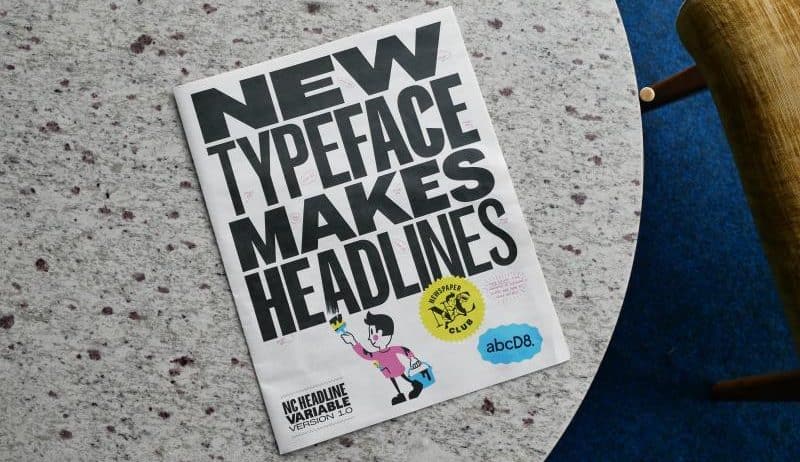
Newspaper Club launches NC HEADLINE with abcD8, a bold tabloid-style typeface owned outright
Newspaper Club unveils NC HEADLINE, a tabloid-inspired variable all-caps font it owns outright, debuting at Birmingham Design Festival
Curator’s Pick: NC HEADLINE Reinvents Ownership
As a branding curator, I champion moves that cut licence noise and amplify identity control. Newspaper Club and abcD8 have done exactly that, commissioning NC HEADLINE for ownership and versatility. The typeface channels tabloid energy, vintage cues and modern flexibility, while staying unapologetically headline first. It demonstrates how bespoke fonts can protect brand equity and reduce recurring costs.
Drawing on St Bride archives, D8 refined broadsheet gravitas into a punchy tabloid voice. The team embraced variable widths, no lowercase and responsive typographic behaviour for social, video, print and large format. That decision makes headlines stackable, bold and adaptable, without diluting historical references. Importantly, abcD8 offers transparent pricing, letting brands own type outright, with no licence surprises.
As a curator, I value projects that merge craft, strategy and community storytelling. This article decodes the collaboration, process and commercial rethink behind NC HEADLINE. You will find design sketches, archival inspiration and reasoning behind owning a headline font. There is also a film and a printed specimen debuting at Birmingham Design Festival. Read the full piece to see why ownership beats licences for many modern brands. It is essential reading for anyone shaping memorable, resilient visual identities.